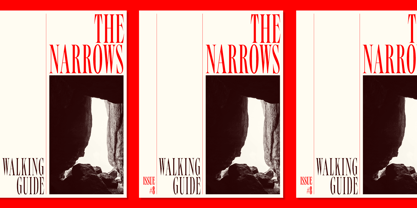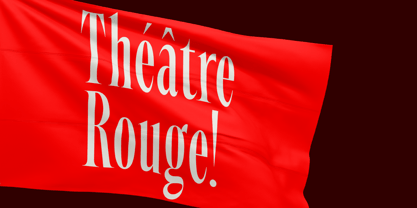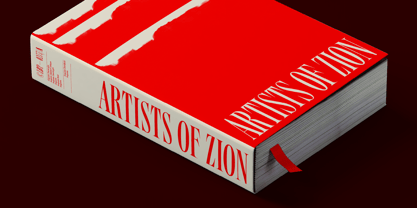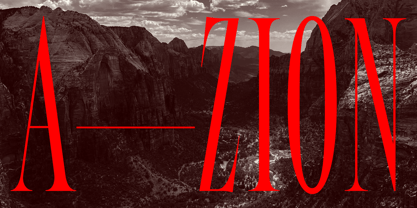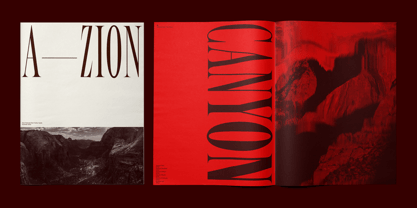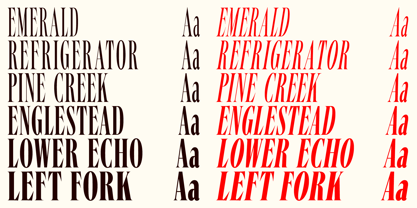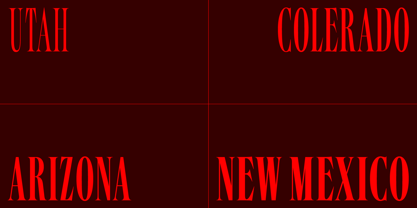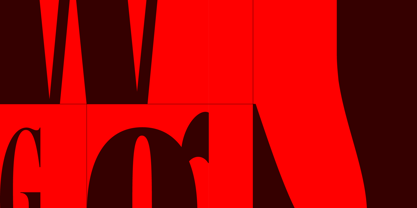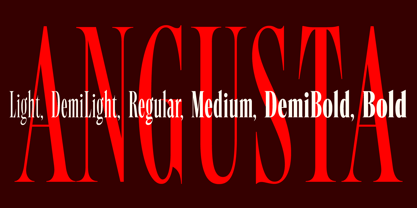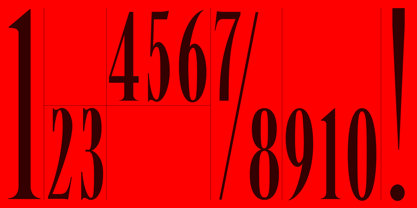
Angusta
Angusta is a highly versatile and elegant display serif type family that draws inspiration from American wood type of the 19th century. The font features an extra-condensed design with tightly spaced letterforms. High contrast between thick and thin strokes gives Angusta a bold, striking appearance that is perfect for headlines, titles, and other large-scale typography. Augusta’s sharp elongated serifs are detailed and elegant, giving it a refined and sophisticated look. The serifs also add a sense of movement to the letterforms, making them feel dynamic and alive.